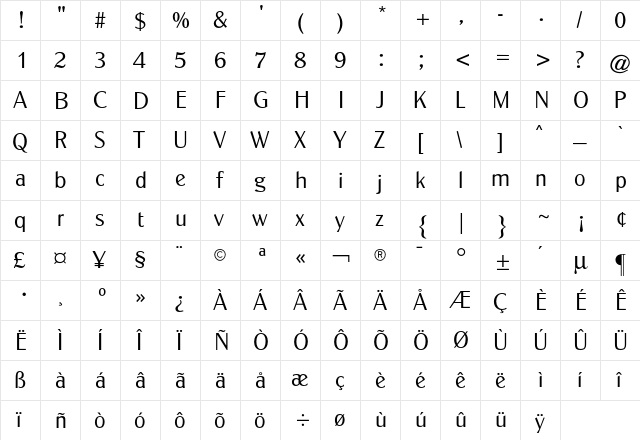
Globe Gothic CG Light Regular
Design Context for Globe Gothic CG Light Typeface
Globe Gothic CG Light takes a clean, functional approach — its unadorned letterforms prioritise legibility and work reliably across screen and print environments. The delicate stroke weight brings airiness and refinement to layouts.
Ideal for fashion and beauty branding, minimal editorial layouts, and premium digital experiences.
Font Pairing: Pair Globe Gothic CG Light with a medium or bold serif for headlines — the weight contrast creates an elegant, high-end feel.
Pro Tip: Avoid using Globe Gothic CG Light at very small sizes where its slender strokes can disappear. It performs best at medium to large sizes.